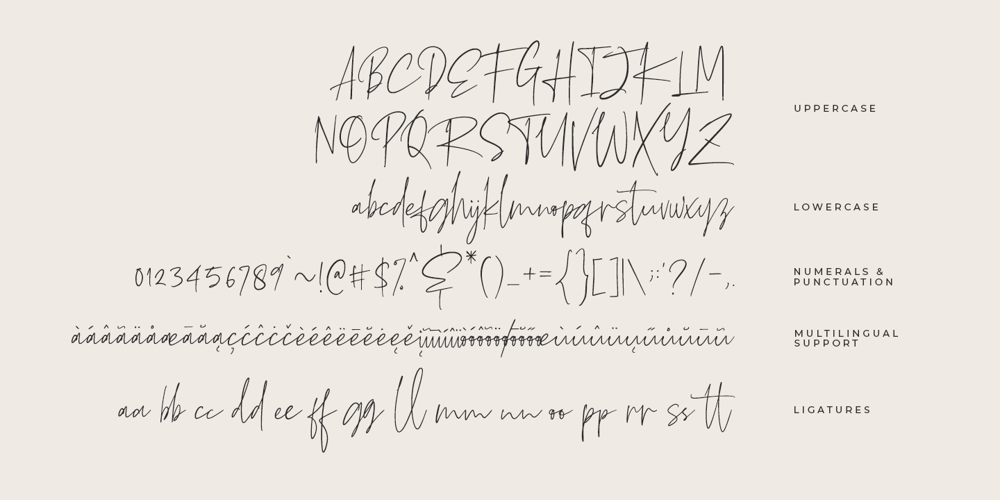
Oaklinn Font Family was designed by Awan Setiawan and published by Awanstudio. Oaklinn contains 1 styles and family package options. Oaklinn is a handwriting script font. It allows you to create stunning and easy hand-lettering in an instant. Ideal for the logo, quotes, product label/packaging, fashion, letter, advertising, poster, merchandise, greeting cards, etc